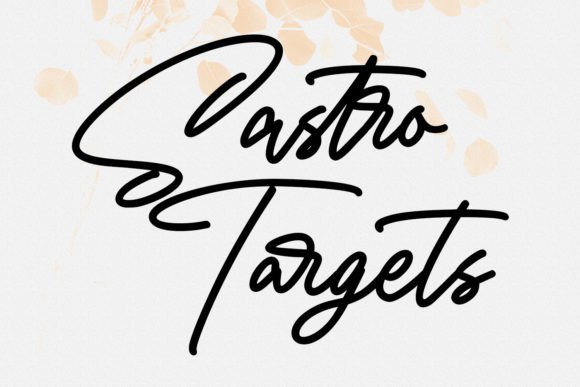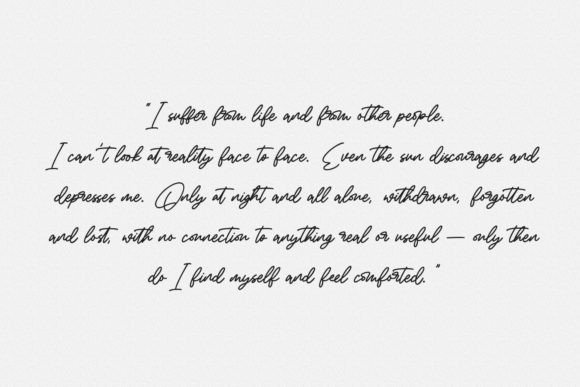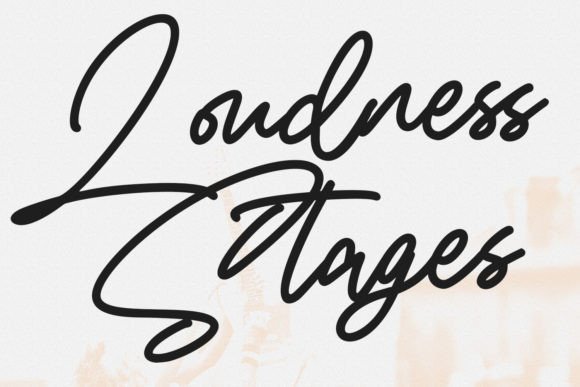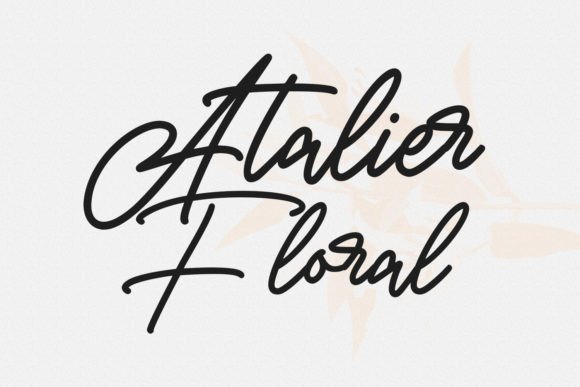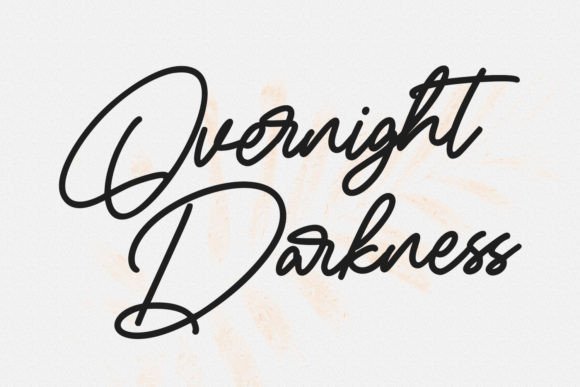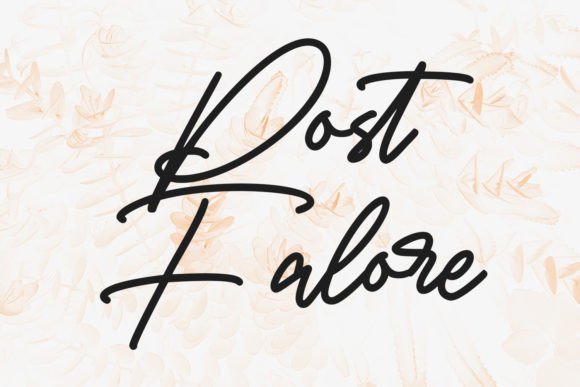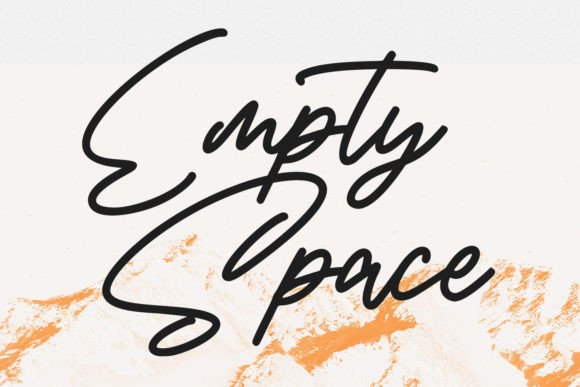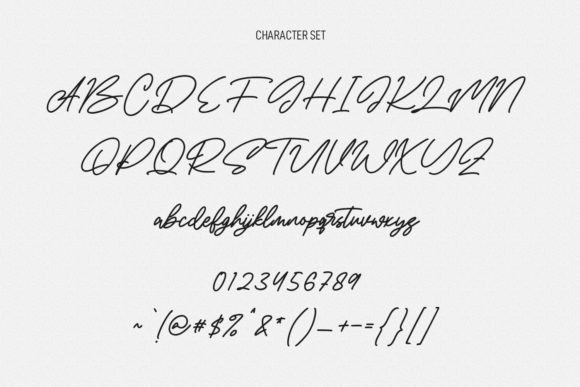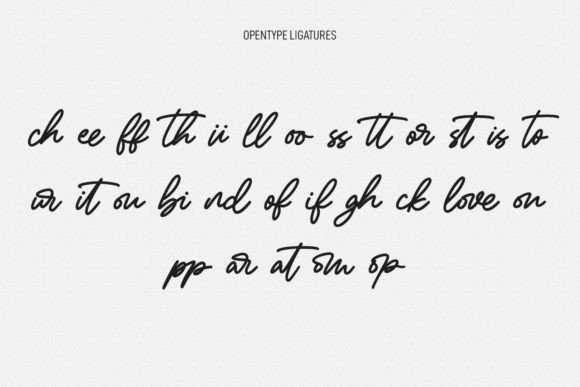
Algroofys Font
About Algroofys Font
Algroofys is a contemporary signature script font known for its consistent mono-line strokes and playful characters. It infuses your creative projects with extra personality and charm. This versatile font is valuable across various design applications. It works well for logo design, social media content, captivating movie and book titles, and both short and lengthy text passages. Additionally, it pairs seamlessly with sans-serif or serif fonts, making it an excellent option for secondary text elements. Embrace Algroofys, and let it help you craft stunning, eye-catching designs that truly shine!
Consistent Mono-Line Strokes
One defining feature of Algroofys is its uniform mono-line strokes. These provide a clean and contemporary look. This consistency ensures that your text remains legible and visually appealing, regardless of the context. Whether you’re creating a stylish logo or conveying a message through social media posts, Algroofys maintains its modern flair.
Playful Characters
Algroofys’s fun and spirited characters add creativity and liveliness to your designs. They capture attention and convey playfulness, making it ideal for projects that require whimsy or personal flair. Your audience will be drawn to the font’s charm, making it an excellent choice for branding or marketing materials that need to stand out.
Versatility in Design
The versatility of Algroofys is a notable asset. It adapts seamlessly to various design scenarios, making it reliable for a wide range of projects. Whether you’re working on a sleek layout or a bold composition, Algroofys provides the flexibility needed to achieve your creative vision.
Complementing Other Fonts
When used with sans-serif or serif fonts, Algroofys creates an appealing contrast that enhances the overall visual impact of your designs. This ability to complement other typefaces makes it a valuable addition to your design toolkit. You can experiment with different typographic combinations and achieve a harmonious balance in your layouts.
In conclusion, Algroofys is more than just a font; it’s a creative tool that empowers you to infuse projects with modernity and individuality. Its consistent mono-line strokes and playful characters make it timeless for designers seeking memorable impact. Whether crafting logos, engaging social media content, or captivating book titles, Algroofys is your partner in creating stunning work. Embrace Algroofys, and watch as your designs come to life in ways that captivate and inspire.
This font also suits other applications like event invitations or personal stationery with its elegant touch. Additionally, it works well in digital media like websites or apps where a personal feel is desired. Its adaptability ensures that no matter the project, Algroofys will add flair that captivates viewers.